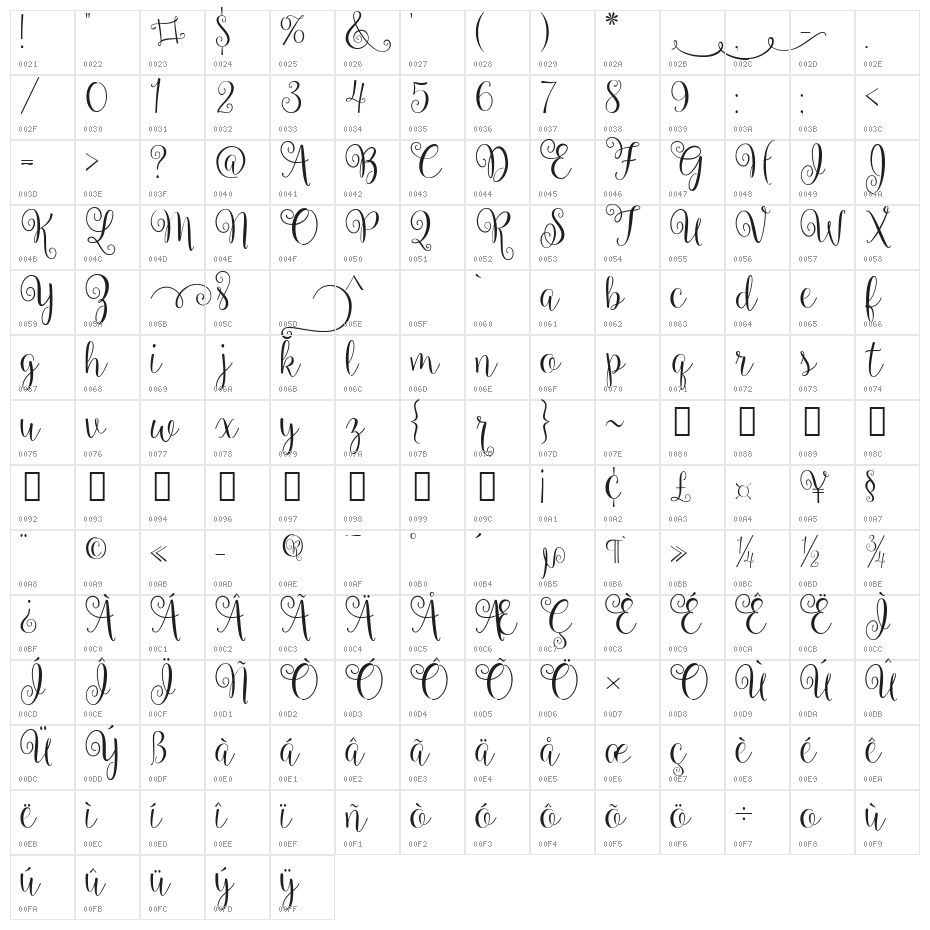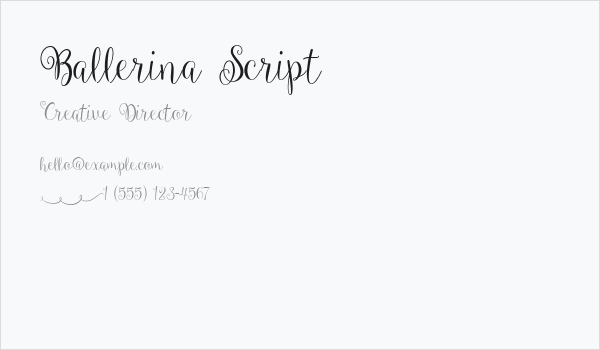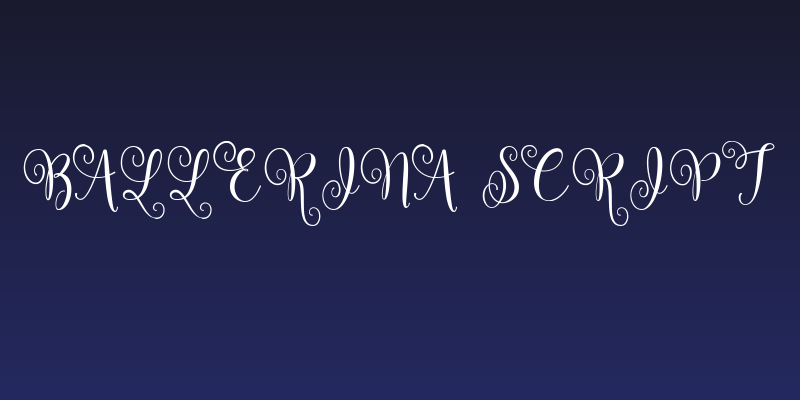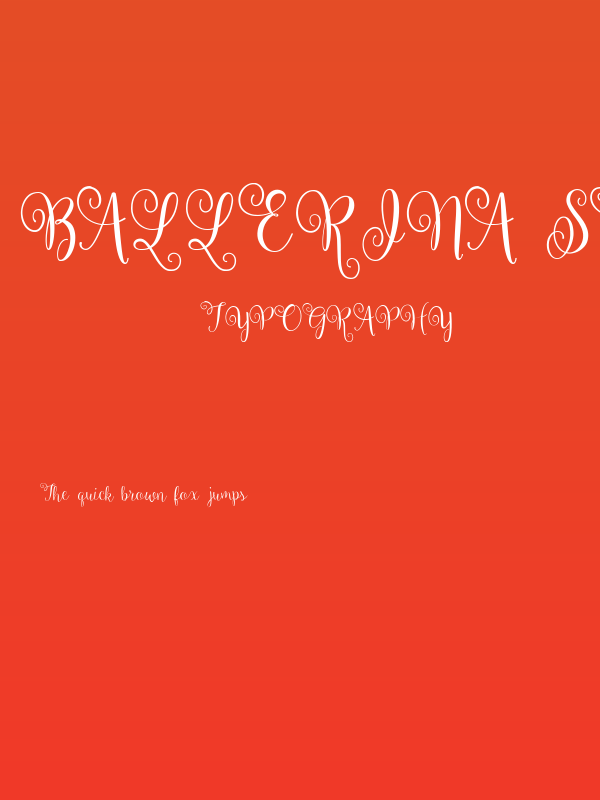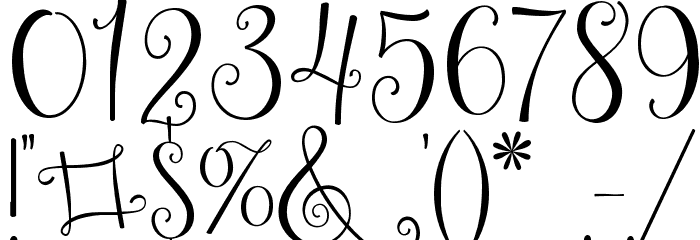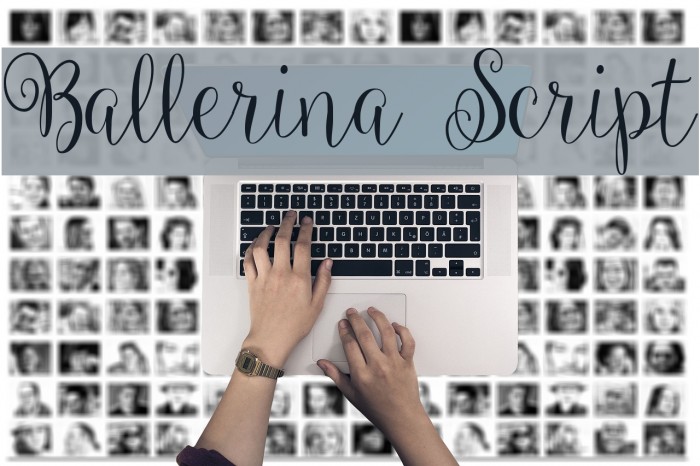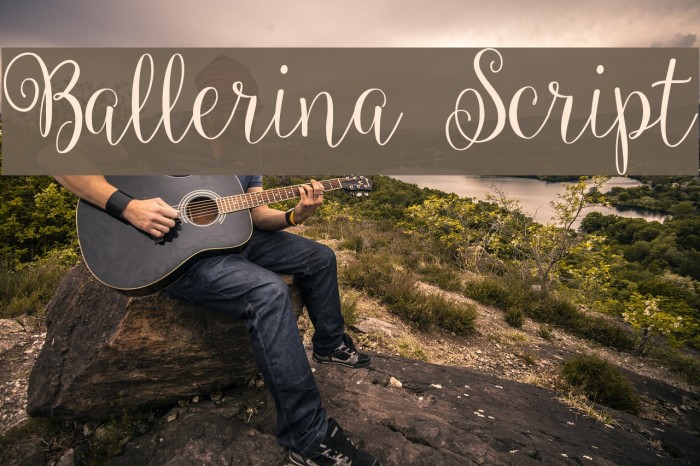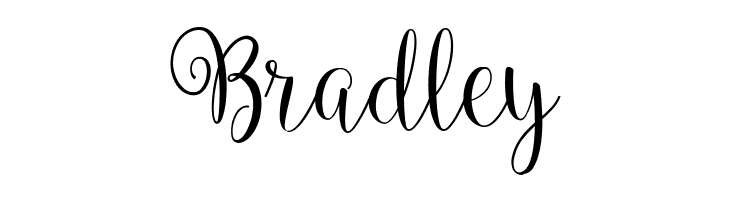
Ballerina Script Font
Ballerina Script Description
This elegant script font features a flowing, cursive style with intricate swirls and loops, reminiscent of classic calligraphy. The uppercase letters are adorned with decorative flourishes, adding a touch of sophistication and charm. The lowercase letters maintain a smooth, connected appearance, enhancing readability while preserving the font's artistic flair. Numbers and special characters are designed with the same attention to detail, ensuring consistency across all elements. This font's graceful curves and delicate strokes make it ideal for projects that require a touch of elegance and refinement.
| Overall Style | Elegant |
| Use Case | Logos, Invitations, Decorative text |
| Proposed Projects | Wedding invitations, elegant branding, greeting cards, and upscale packaging. |